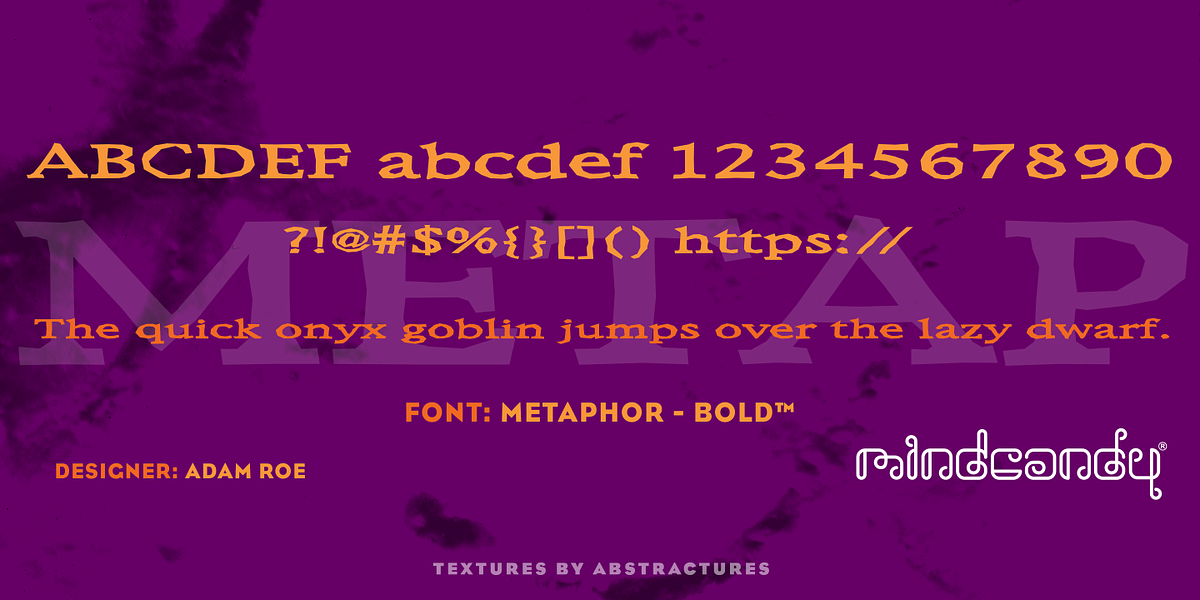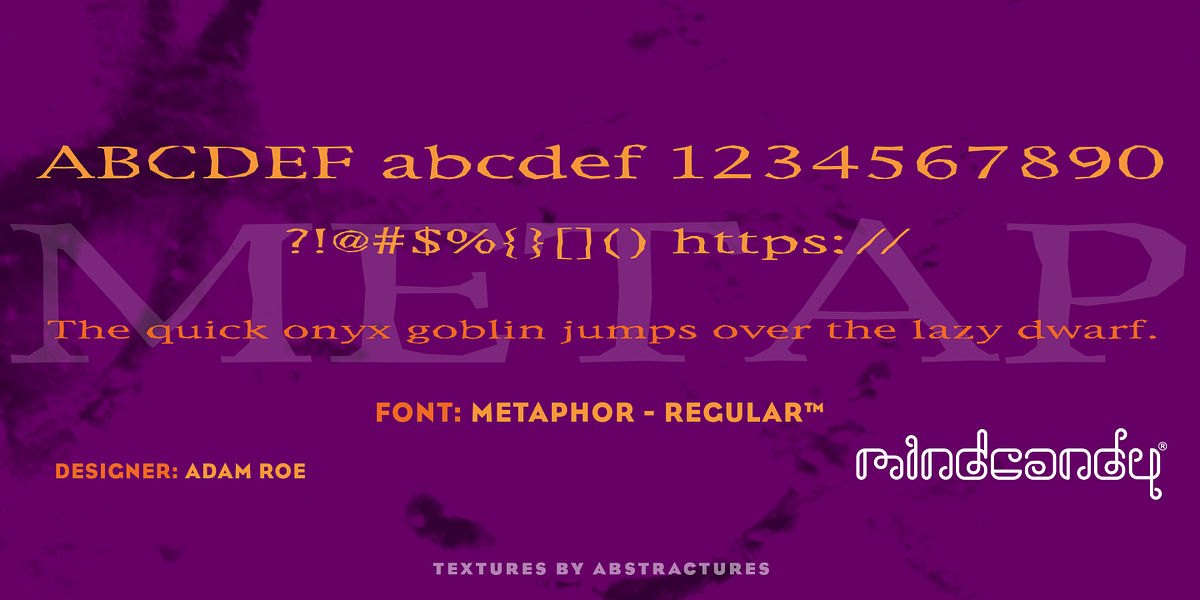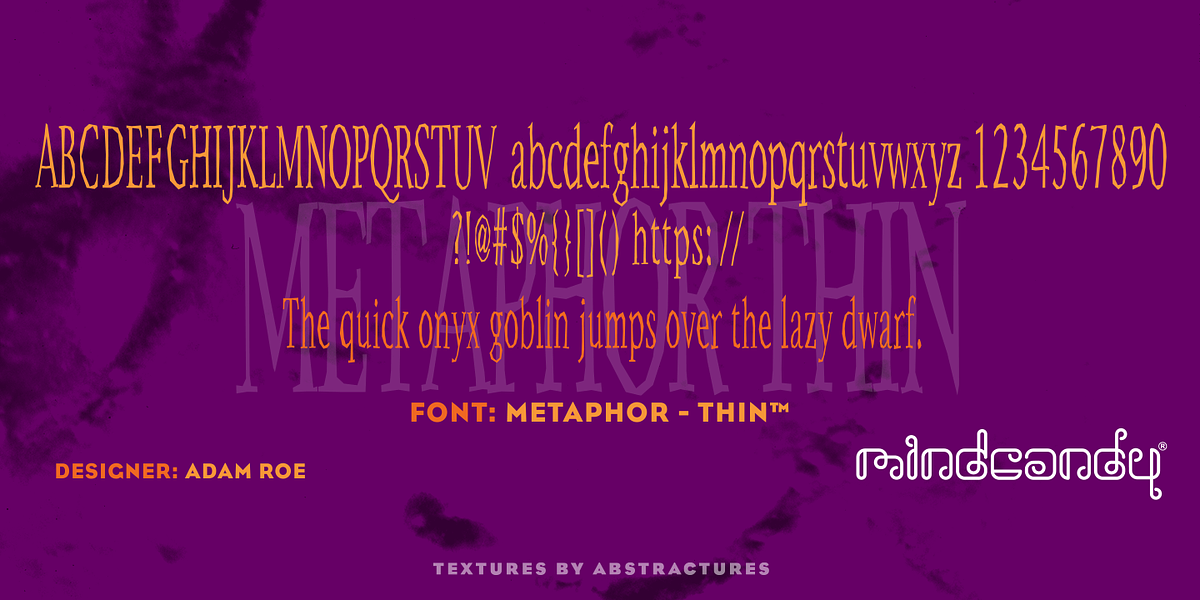
Metaphor™
This novelty display serif font is designed to evoke the look of roughly cut paper. It's ideal for eye-catching headlines, posters, and branding materials where a distinctive, playful aesthetic is desired.